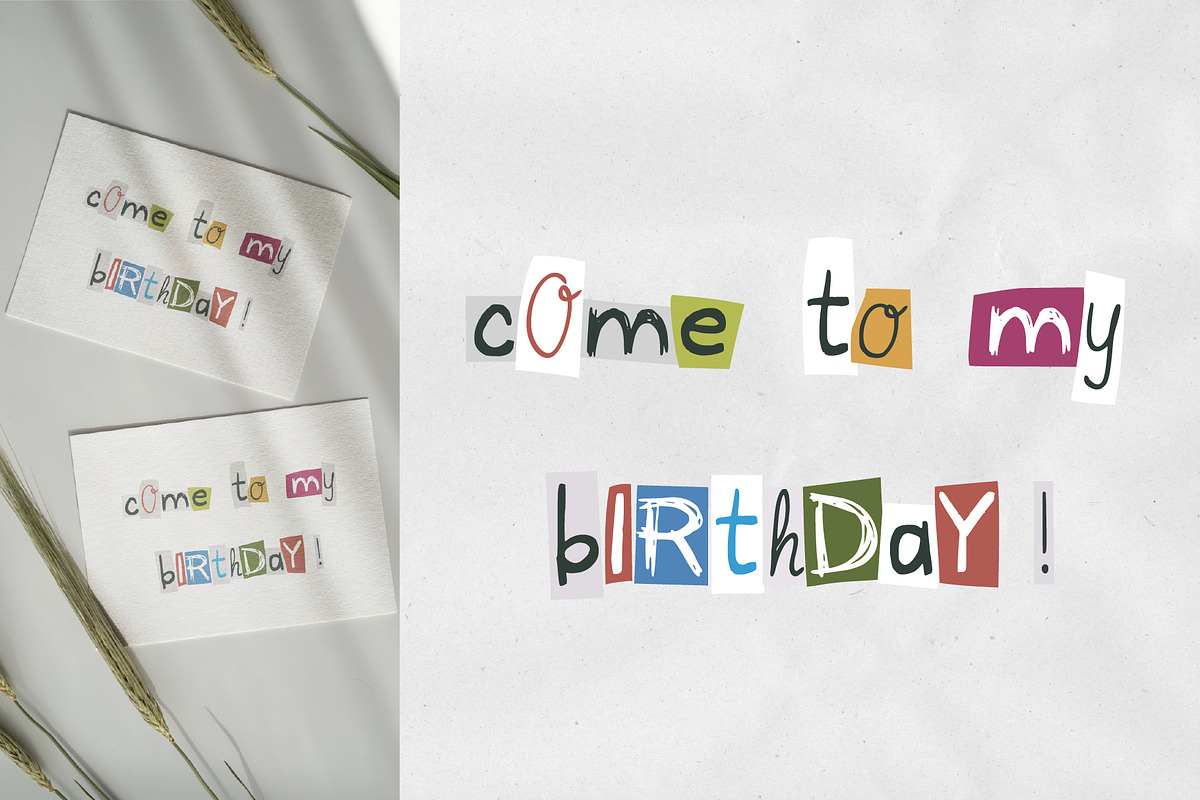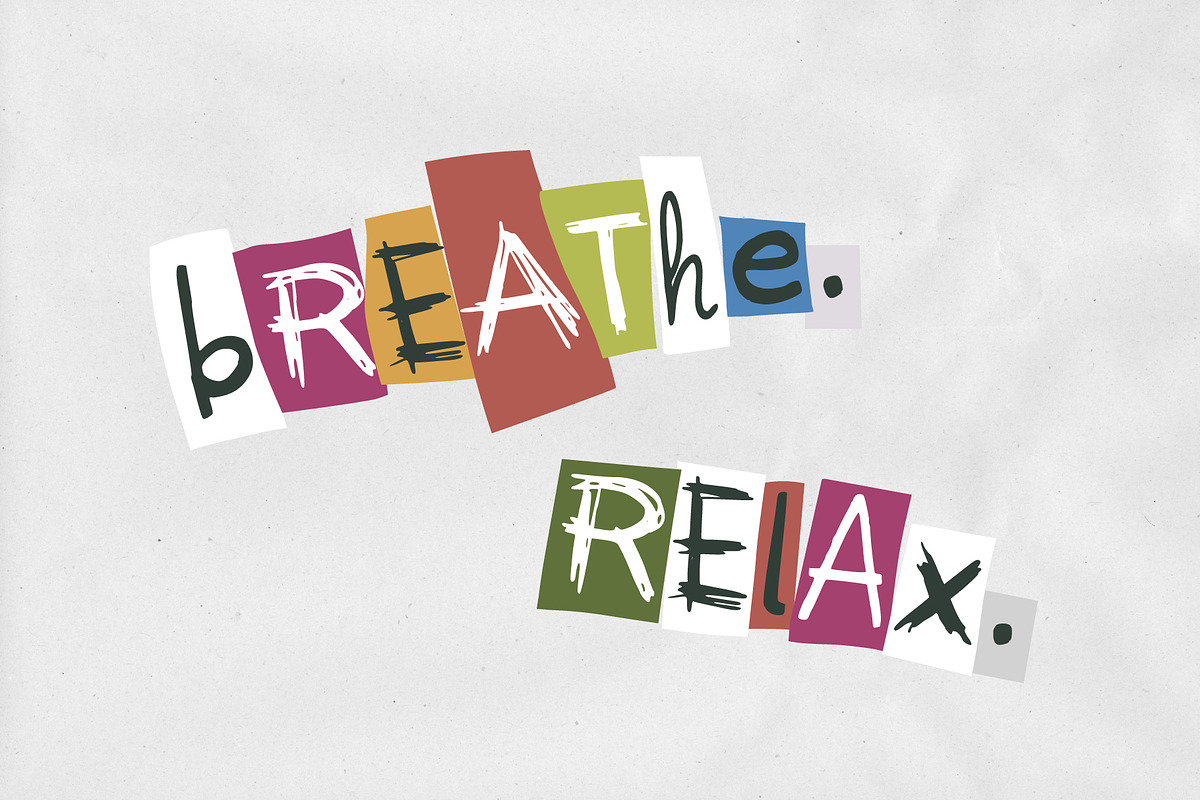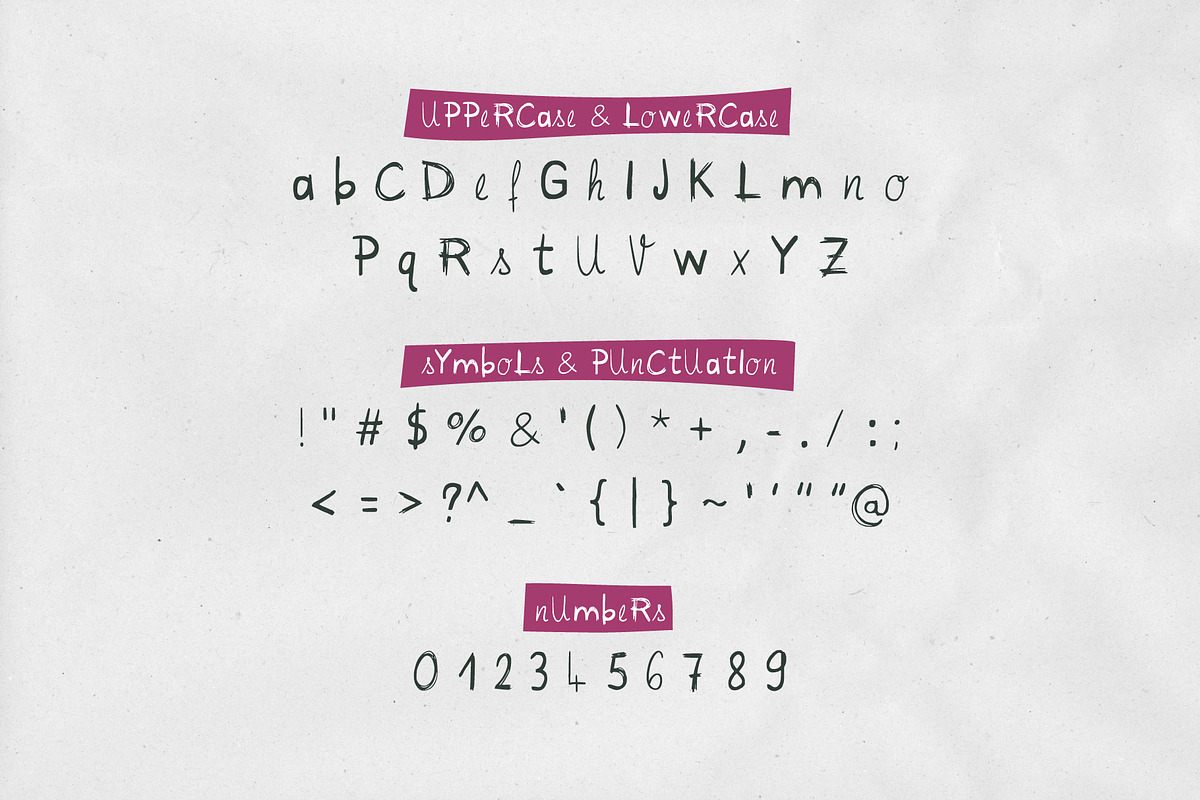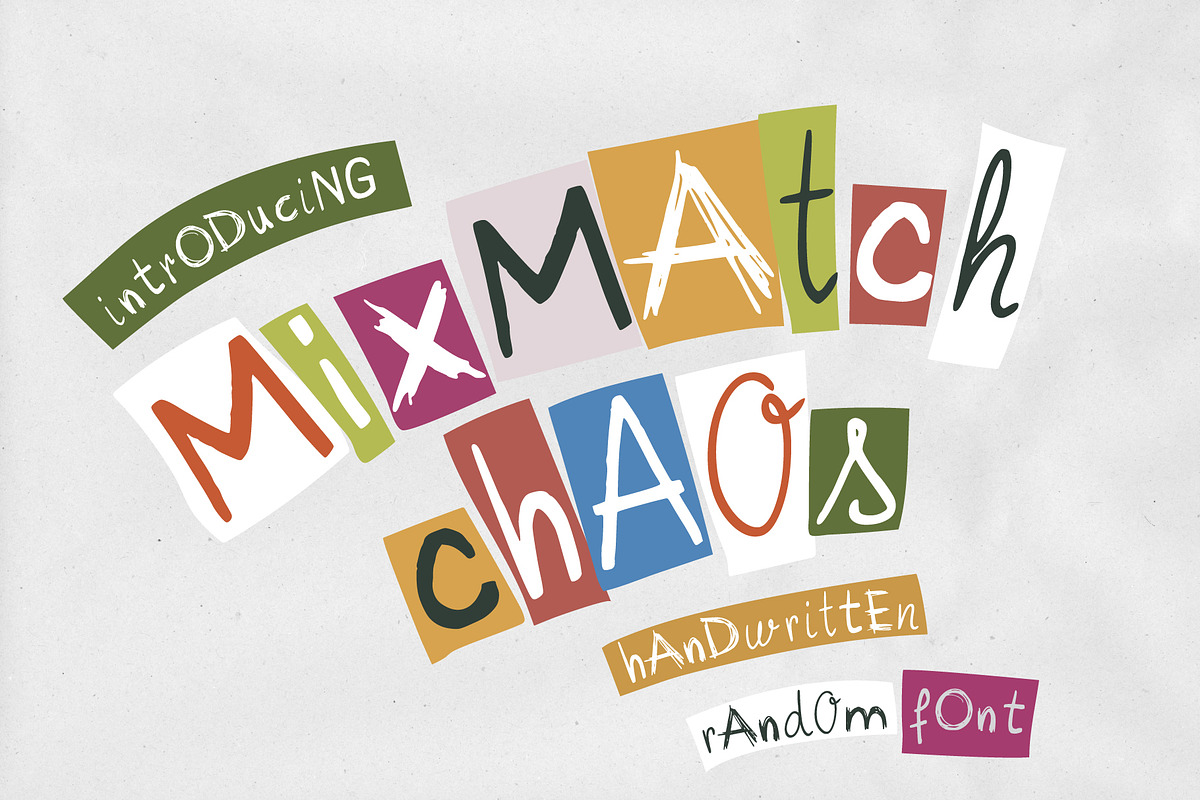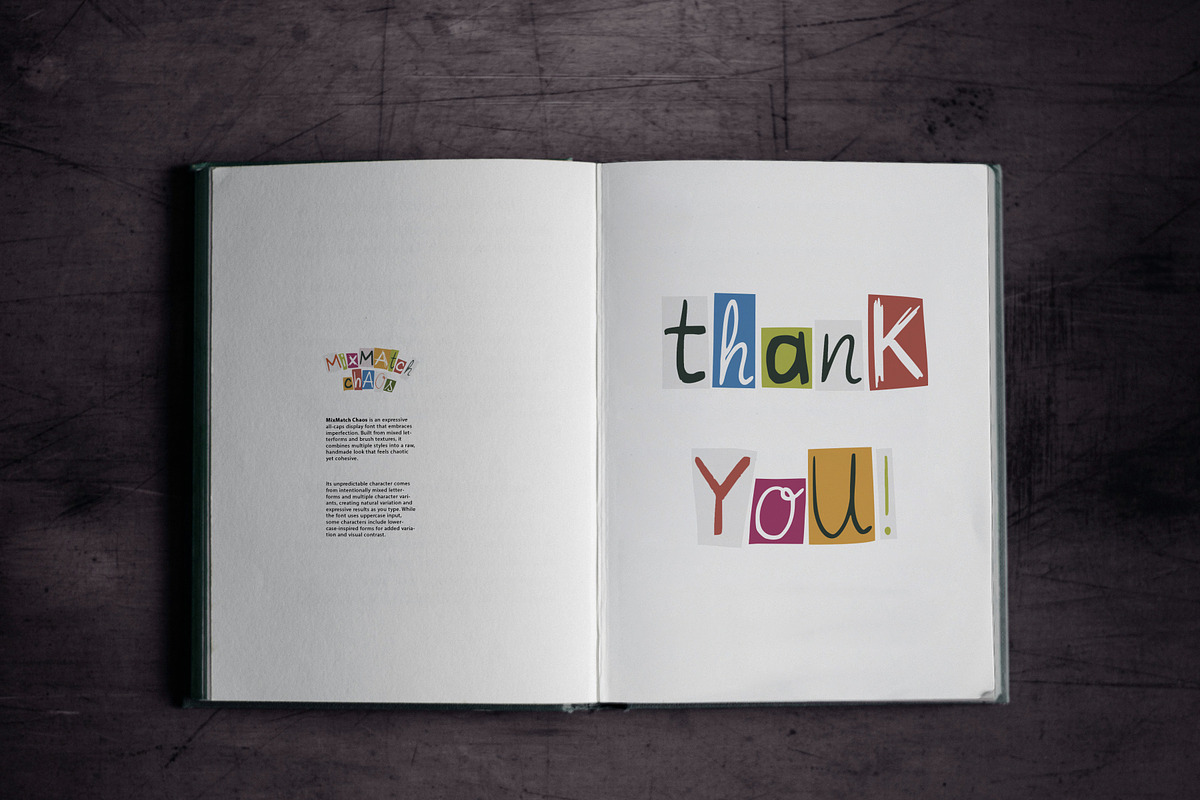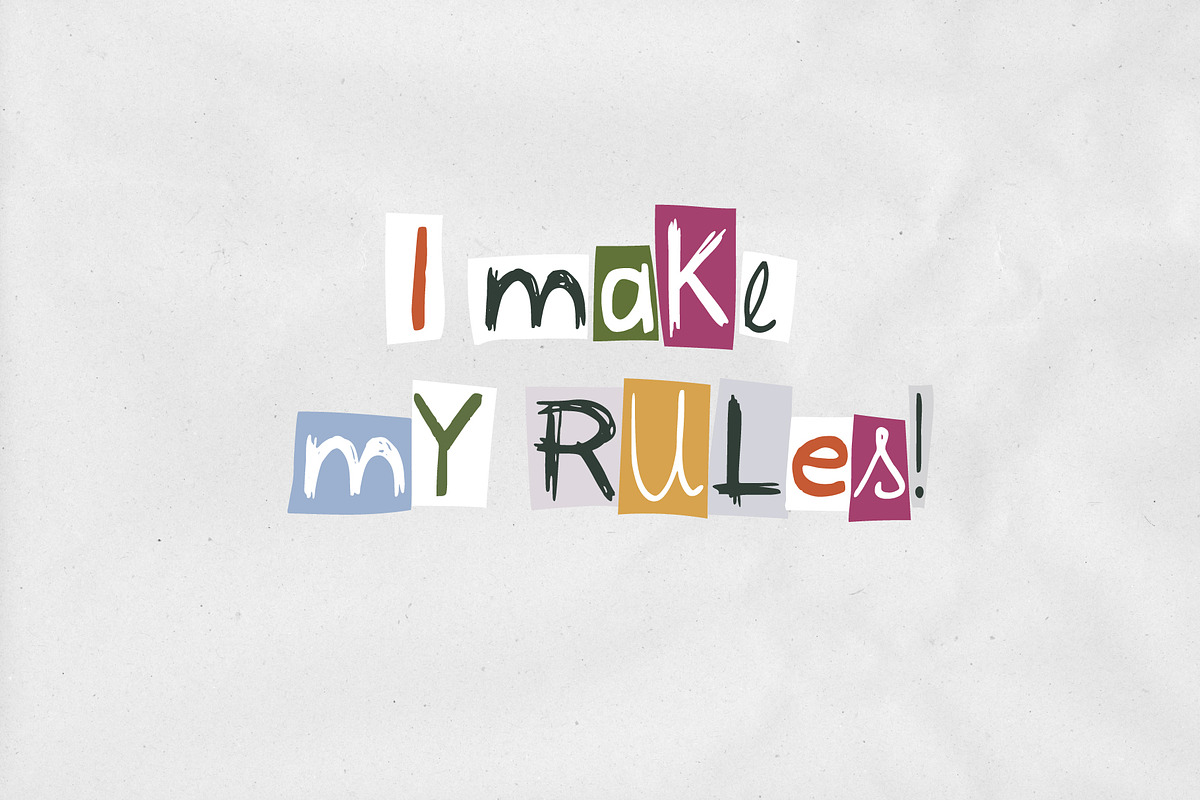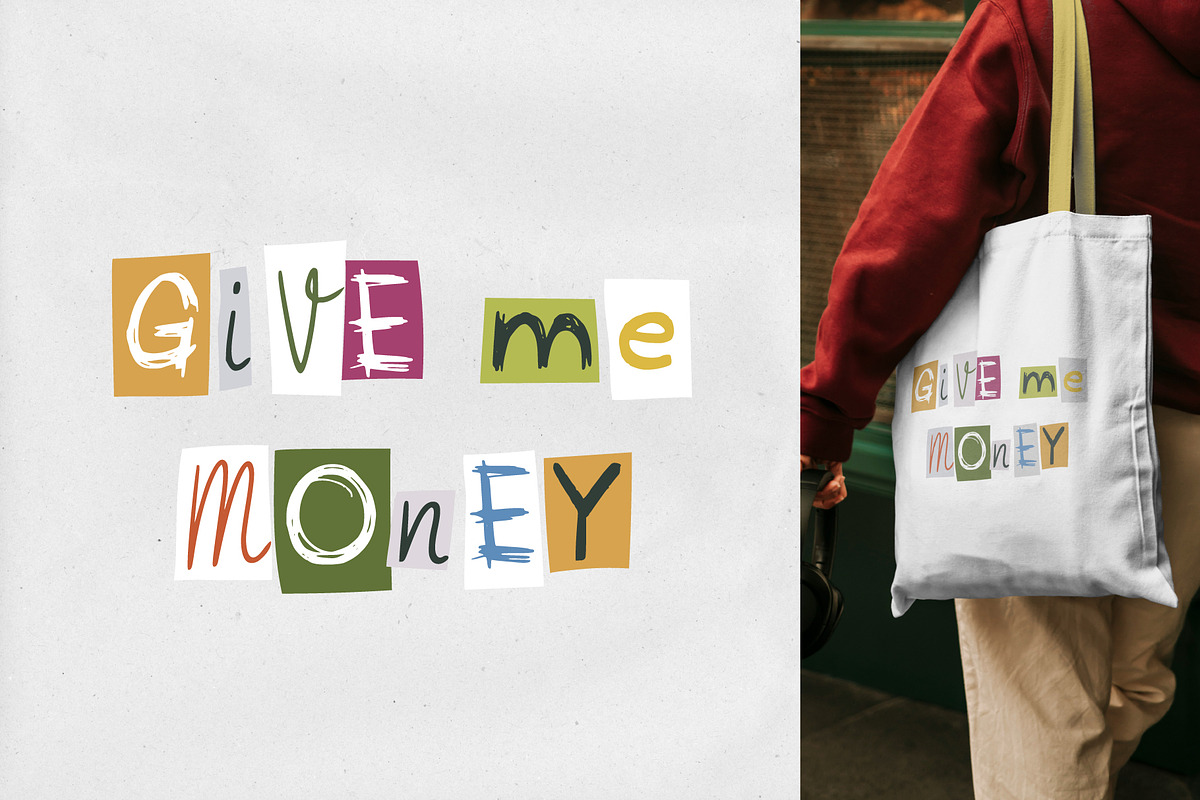
MixMatch Chaos
MixMatch Chaos is an expressive all-caps display font that embraces imperfection. Built from mixed letterforms and brush textures, it combines multiple styles into a raw, handmade look that feels chaotic yet cohesive.
Its unpredictable character comes from intentionally mixed letterforms and multiple character variants, creating natural variation and expressive results as you type. While the font uses uppercase input, some characters include lowercase-inspired forms for added variation and visual contrast.
Inspired by ink, scanned noise, and experimental lettering, MixMatch Chaos is perfect for bold headlines, posters, album covers, editorial layouts, branding, and creative projects that need personality with an edge.
For more control, you can explore OpenType features in your design software (such as Adobe Illustrator). These allow you to toggle between different character variations and refine the overall look.
Please note: this font supports basic Latin characters only. Multilingual support is not included at this time.